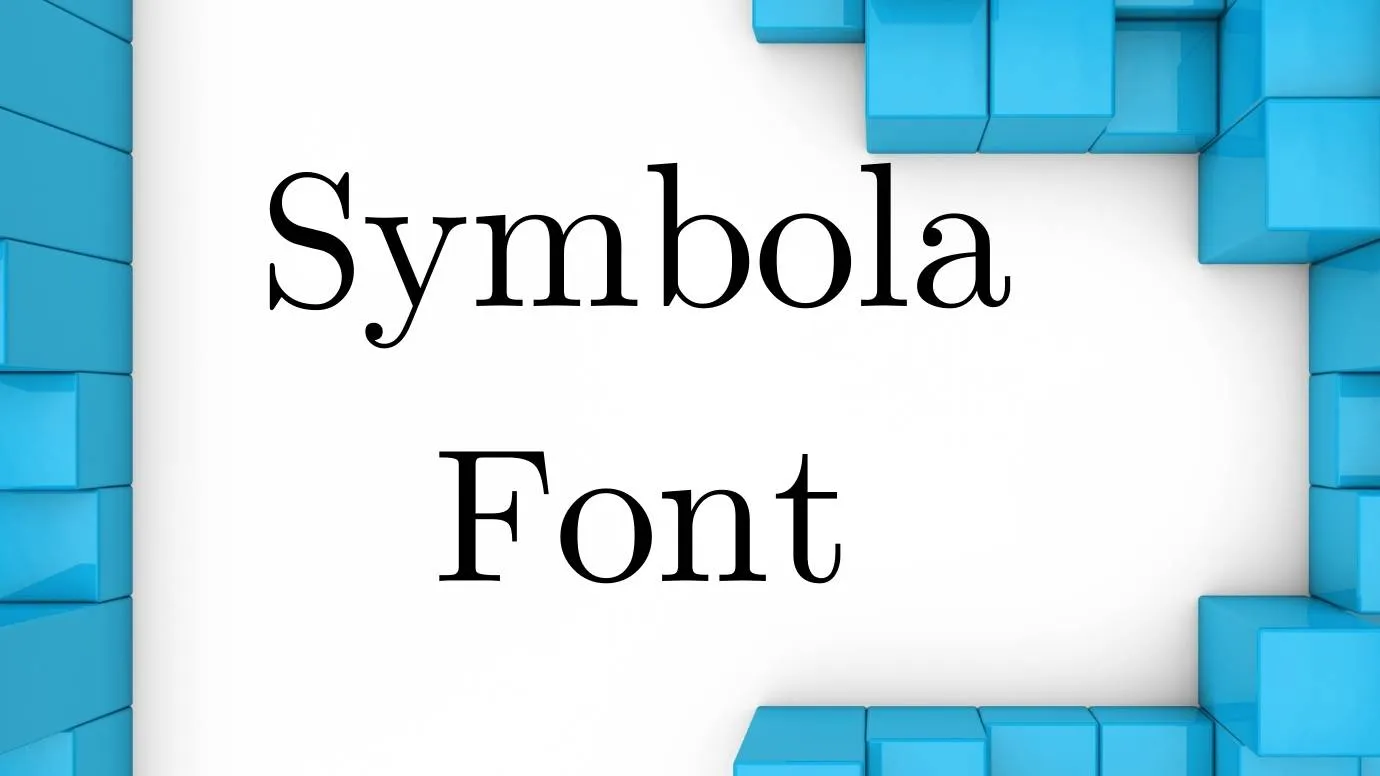
Symbola Font Family is a modern and fantastic typeface. It was founded by George Douros in 2015. This typeface is a serif typeface that has an amazing and eye-catching look. It consists of more than 451 attractive characters and eight unique styles.
The special characteristics of this typeface make outstanding designs that help you for giving huge fame in the font marketplace. Due to its elegant look, several international languages support this typeface.
Symbola Font